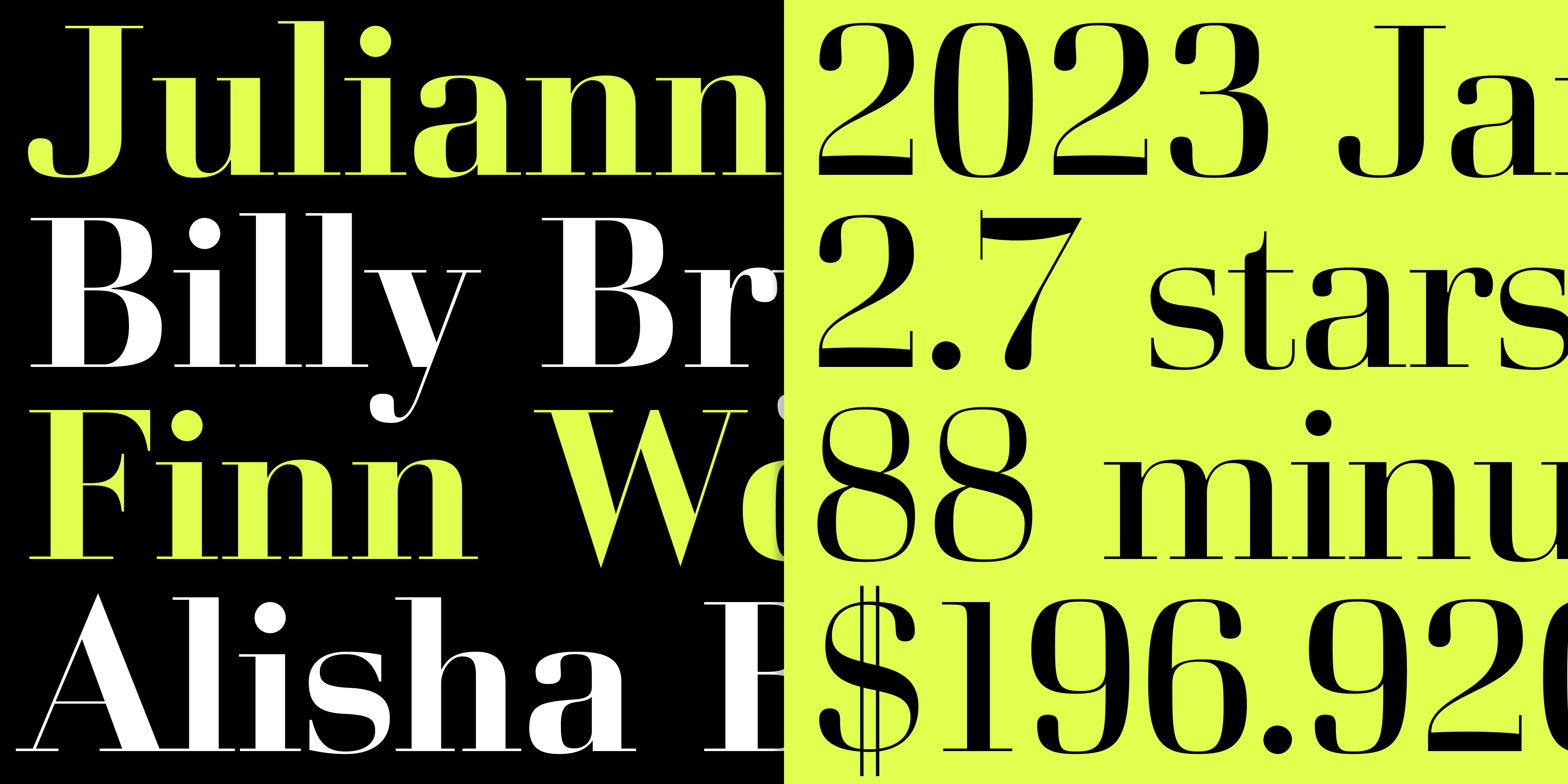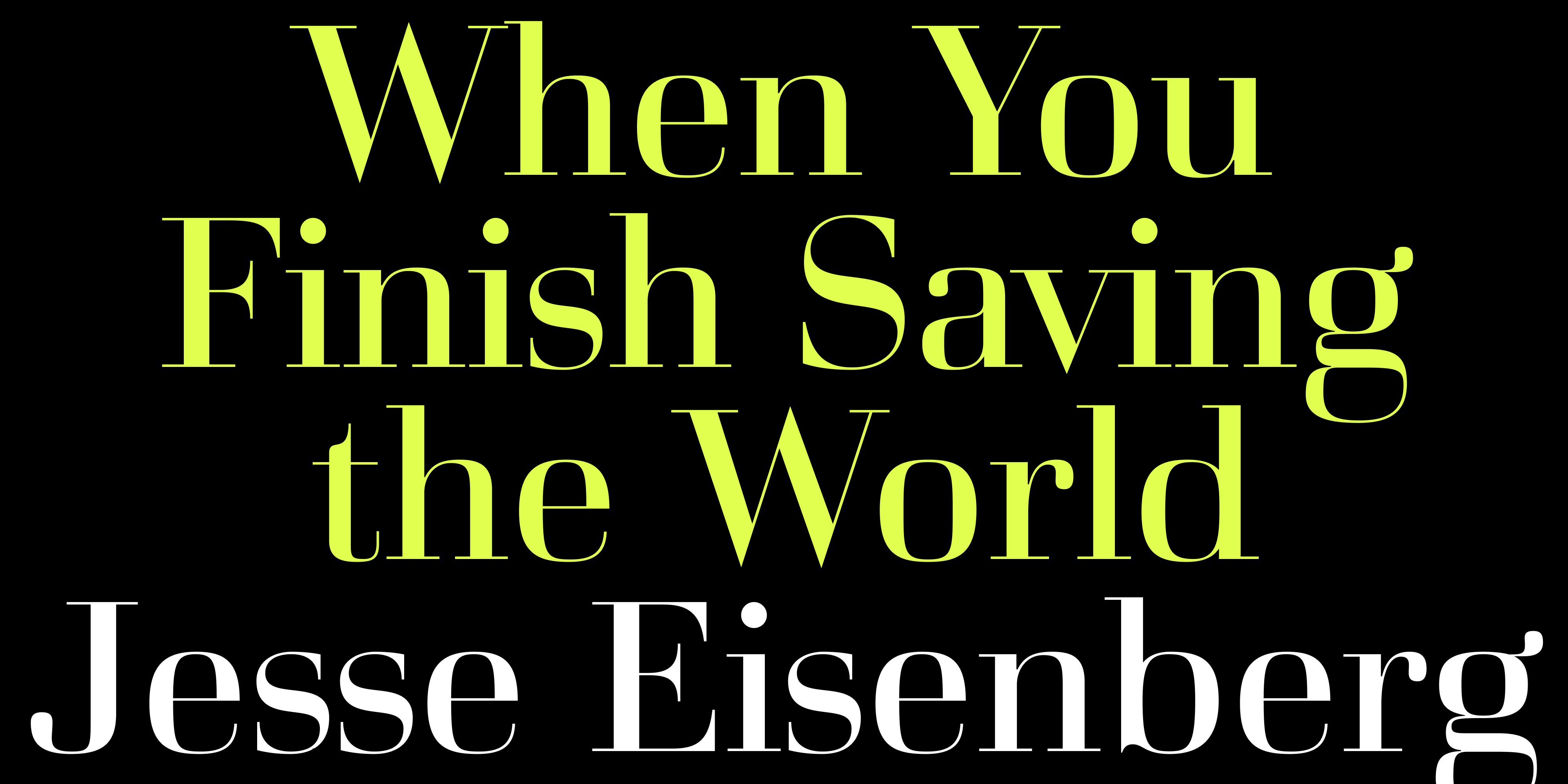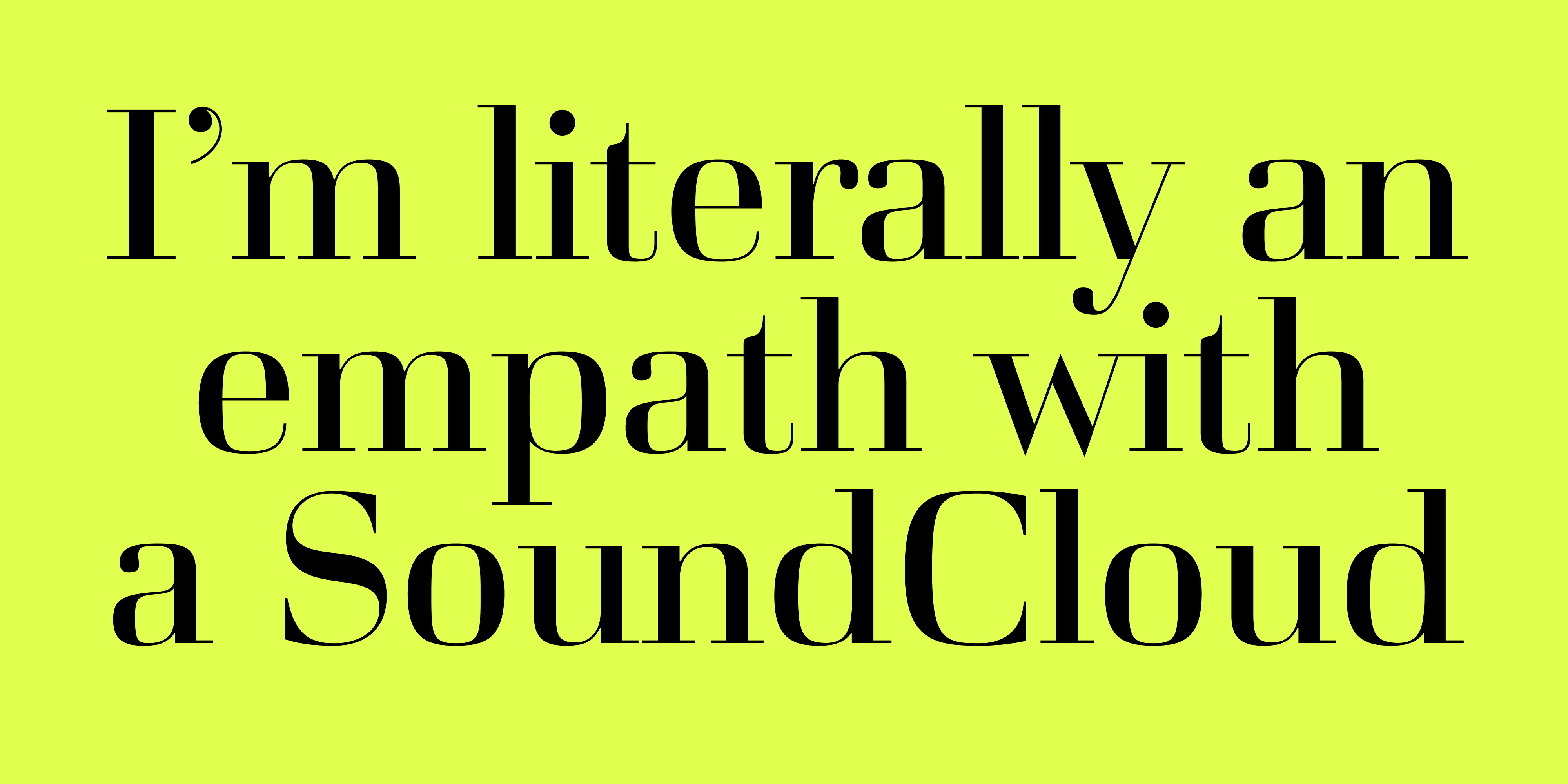
The hairlines becomes thinner and adds a more delicate didot feel to the design, with the contrast accentuating the expressive details. This combined with the square form makes the display version easily capture attention.